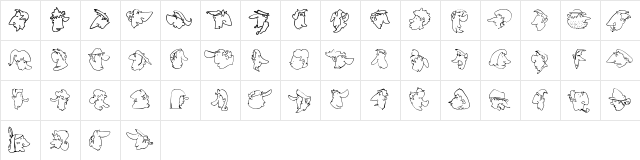
Improfil LT Outline is built around its visual character rather than neutral utility - its distinctive forms are designed to make an impression at display sizes. Its slender proportions lend an understated elegance to any composition.
Font Pairing: Pair with a clean neutral sans-serif for body copy to let Improfil LT Outline's character lead without overwhelming the composition.
Pro Tip: Use Improfil LT Outline exclusively at display sizes - it was designed to be seen, not read at length. Let a neutral companion handle body copy.